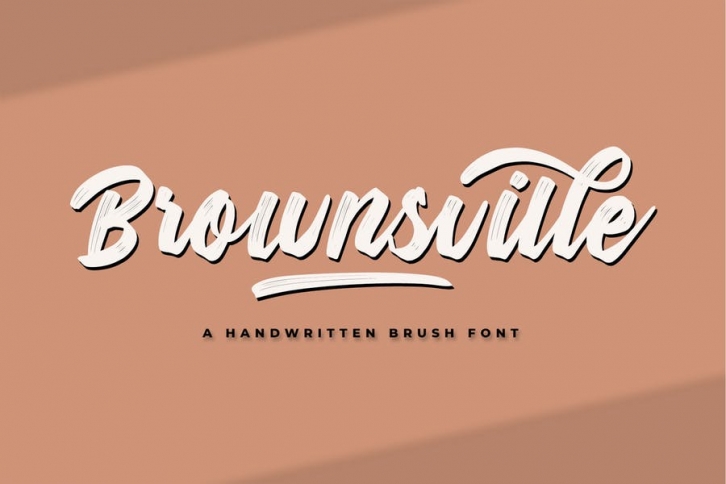
Brownsville FONT Download
Brownsville Font Download
Introducing the Brownsville! This font was created to help you designing logotype or lettering style logo for your Brand or your clients, and you also can use it for designing all of the graphic stuff such as badge, sign, packaging, headline, title, T-shirt/apparel, Poster, etc.
Brownsville is a handwritten brush was designed for personal characters such as strong, confidence, dynamic, readable, Energic, dynamic, etc.